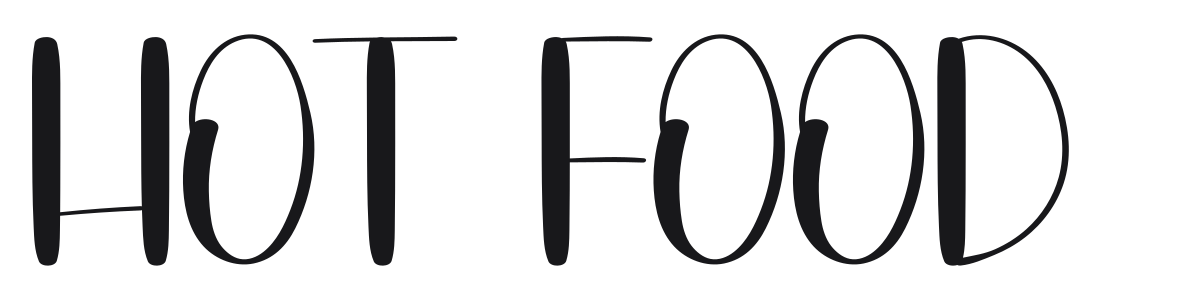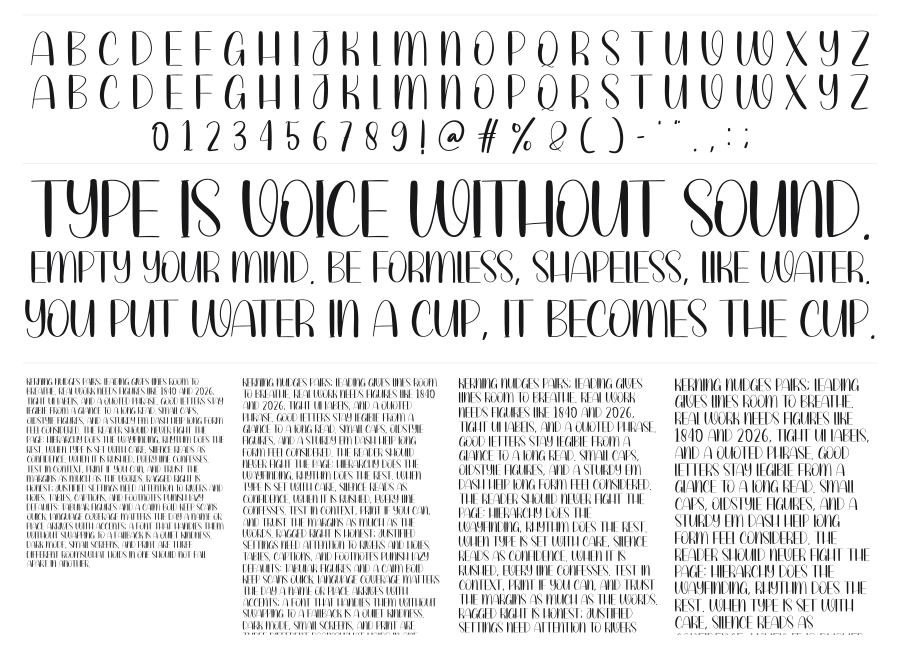
Hot Food
Hot Food is a dramatically condensed display font with extreme stroke contrast, pairing razor-thin hairlines against bold, sweeping strokes. The characters carry a retro editorial charm with looping, calligraphic terminals that push it toward the festive and romantic. It works best large, where the contrast and personality have room to breathe.